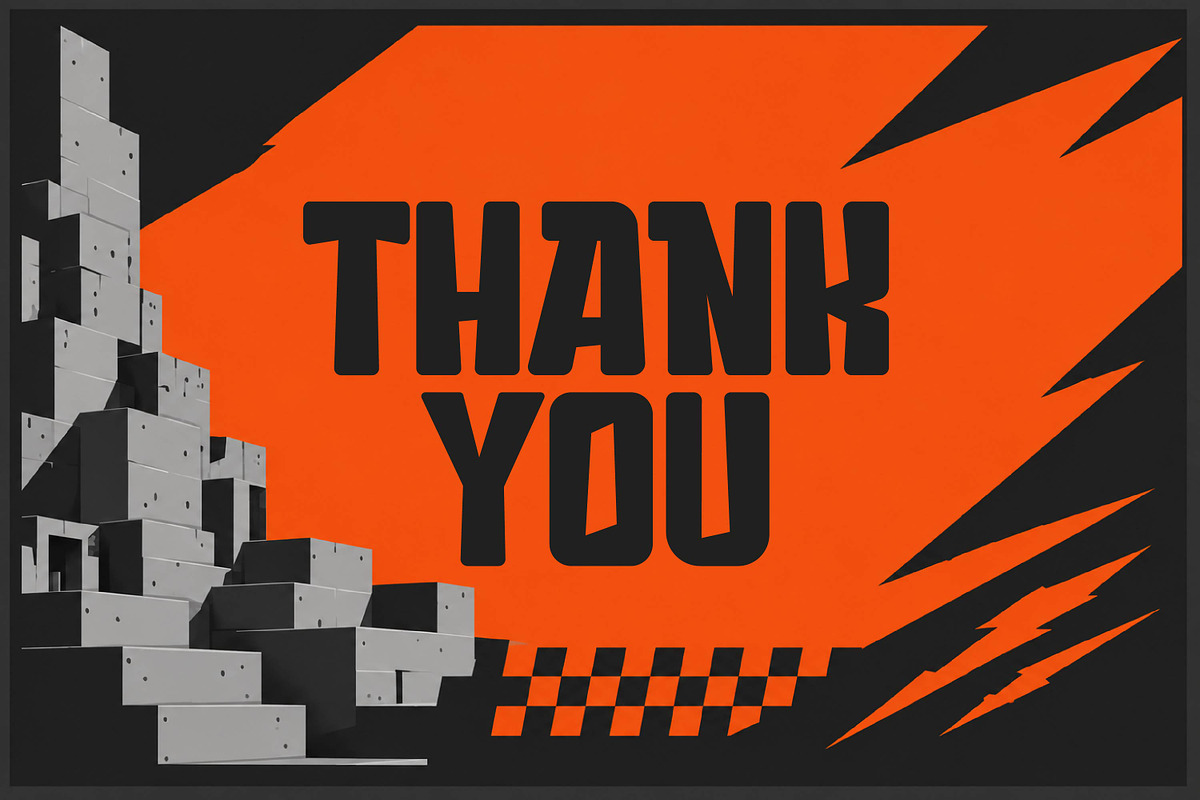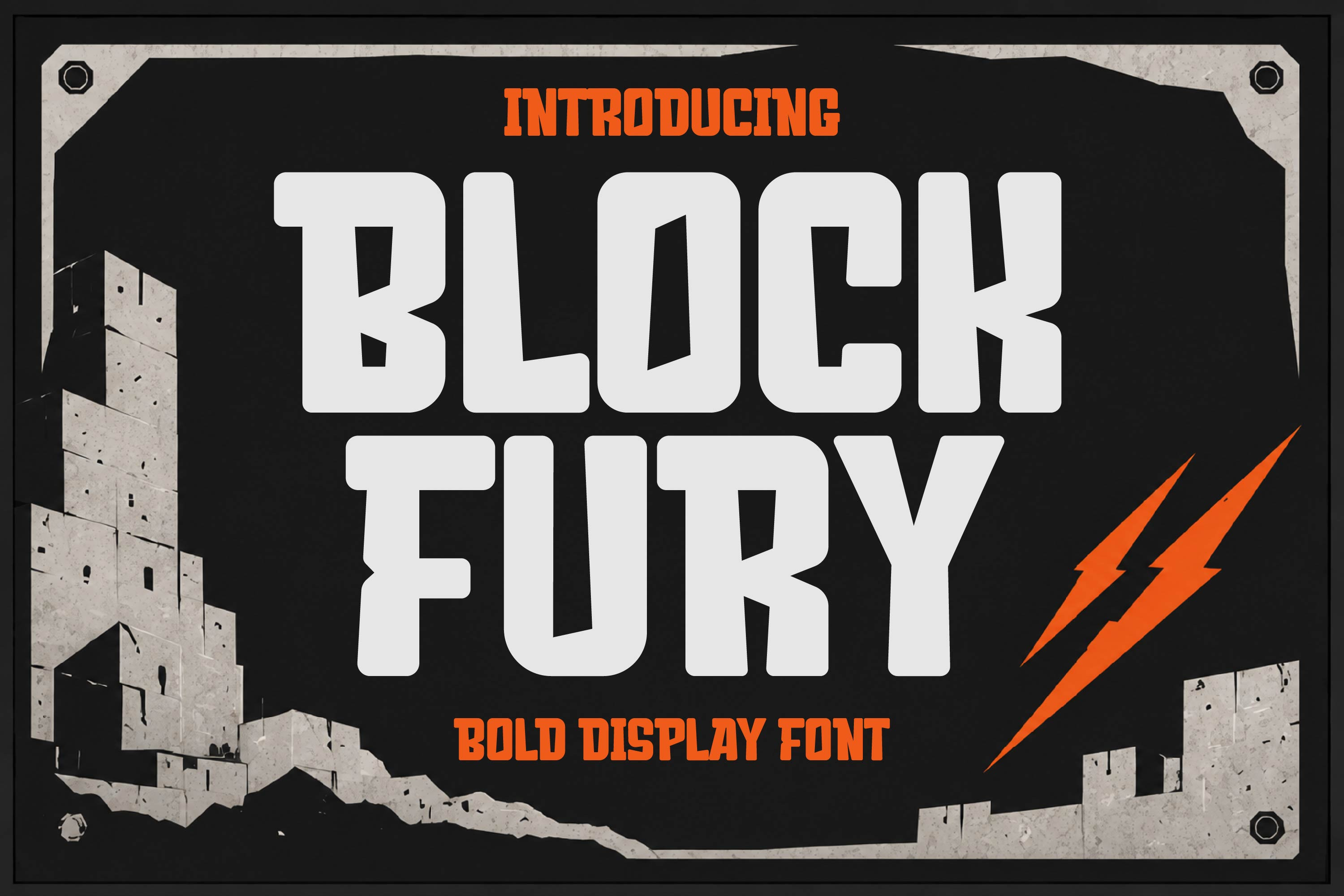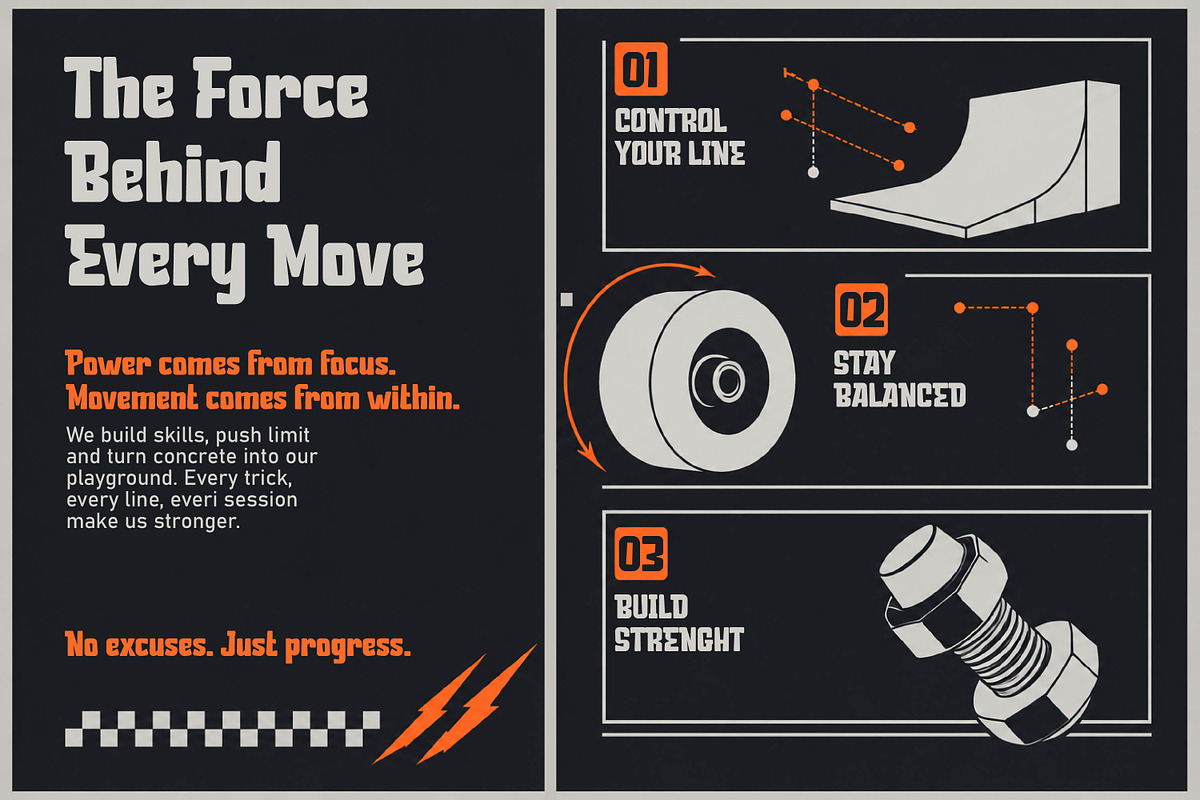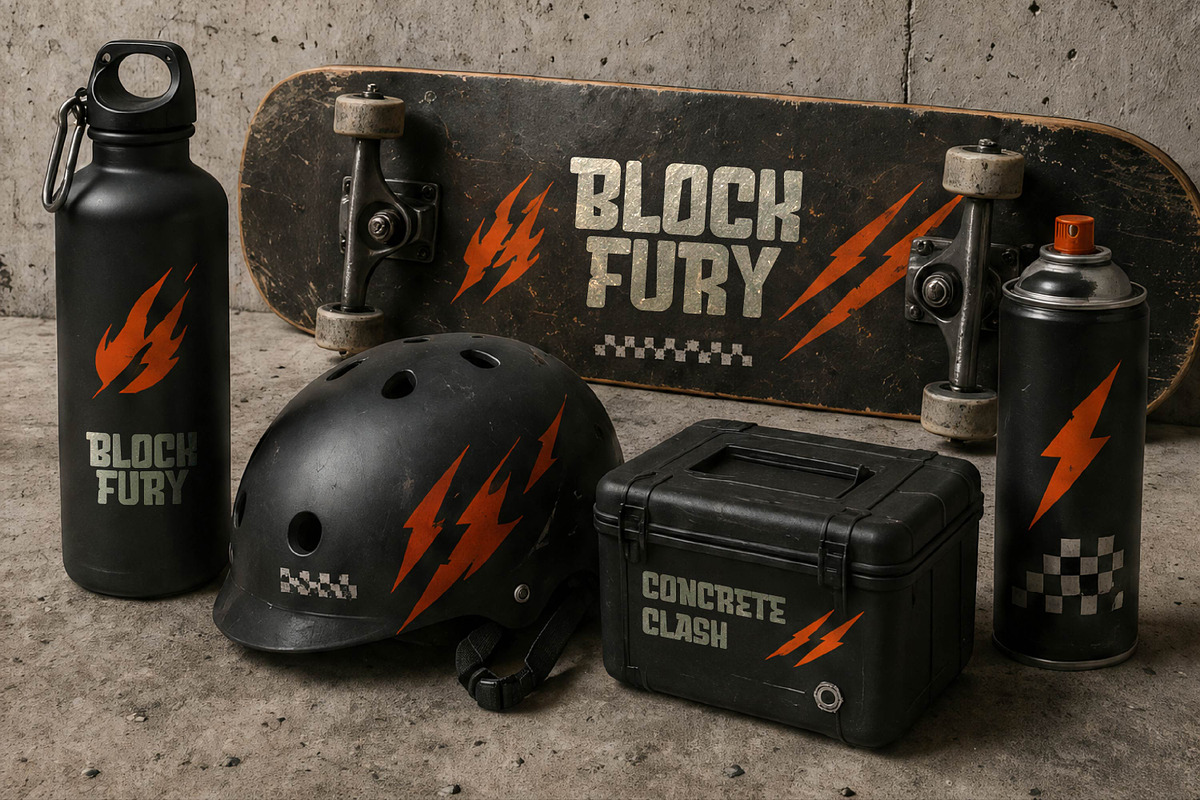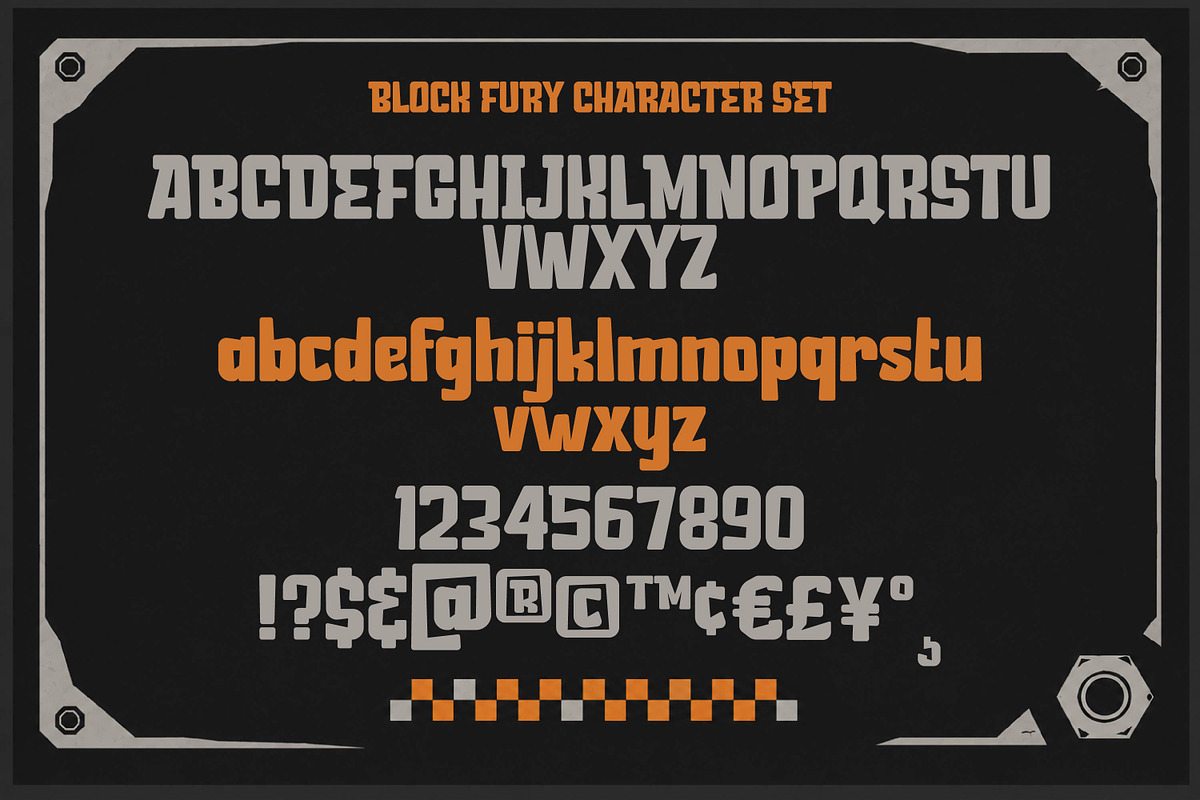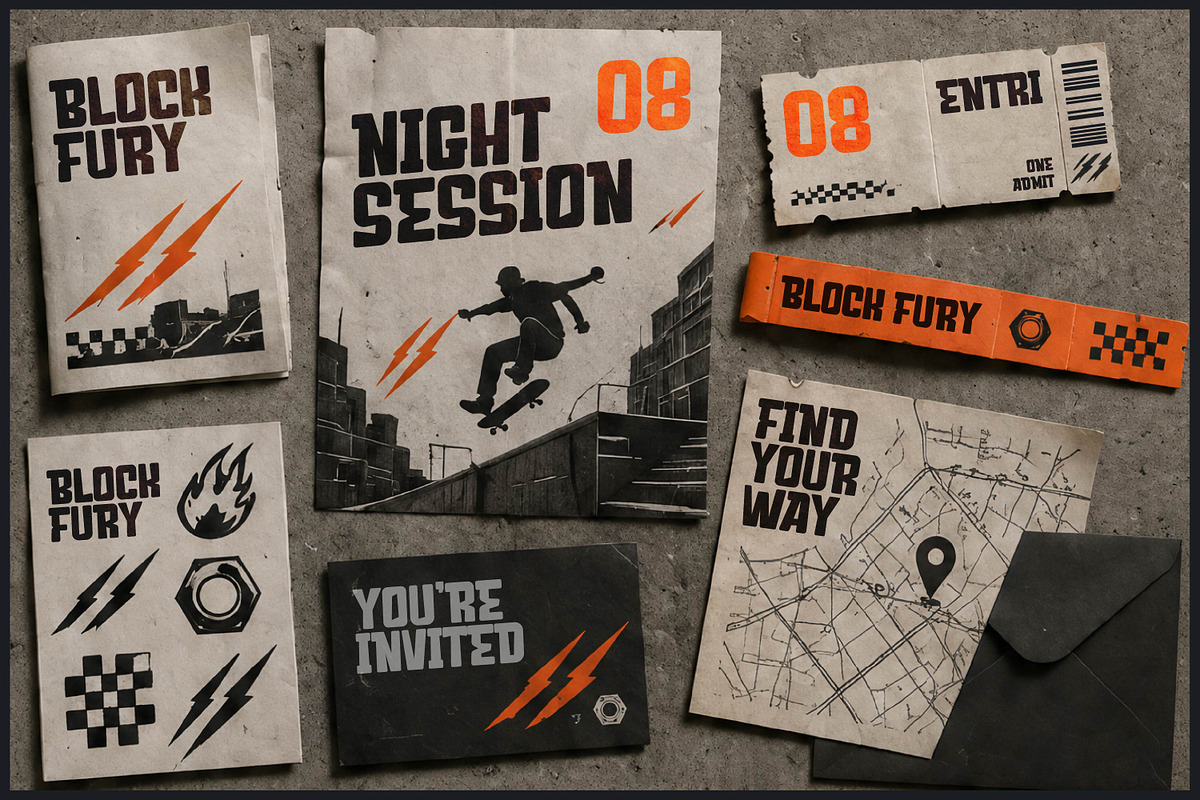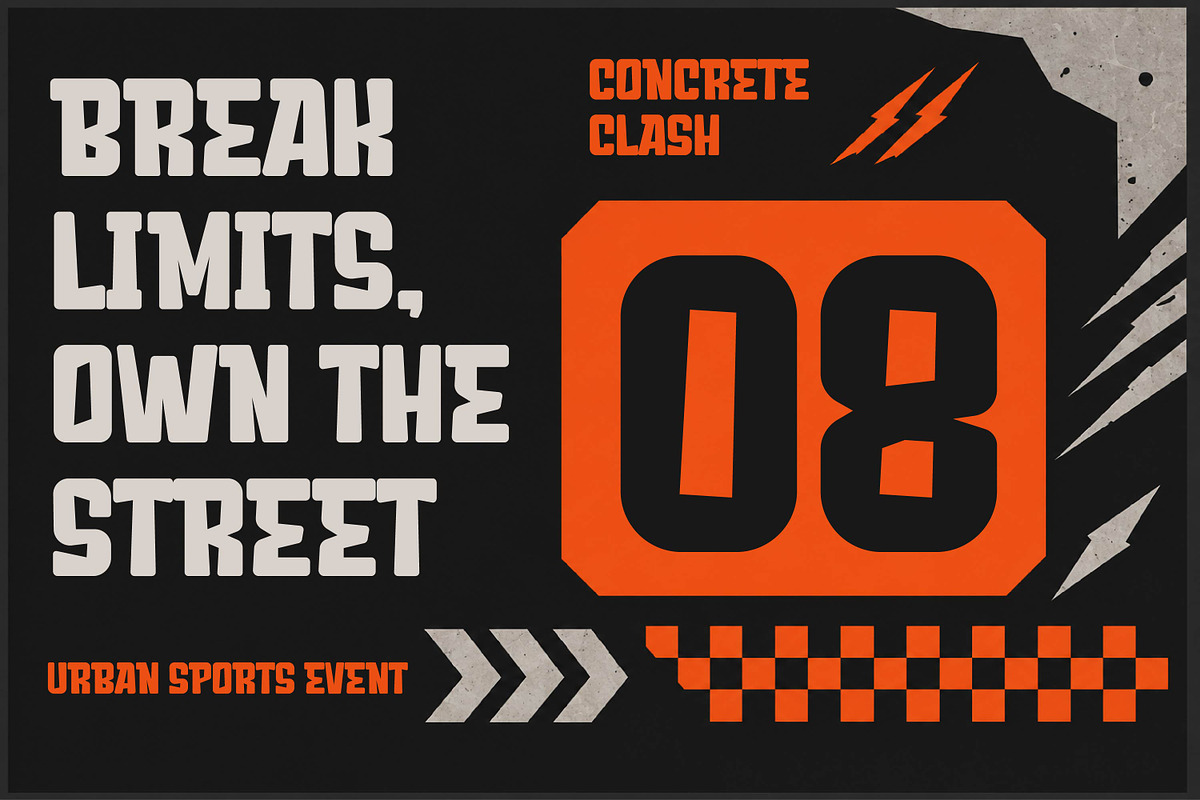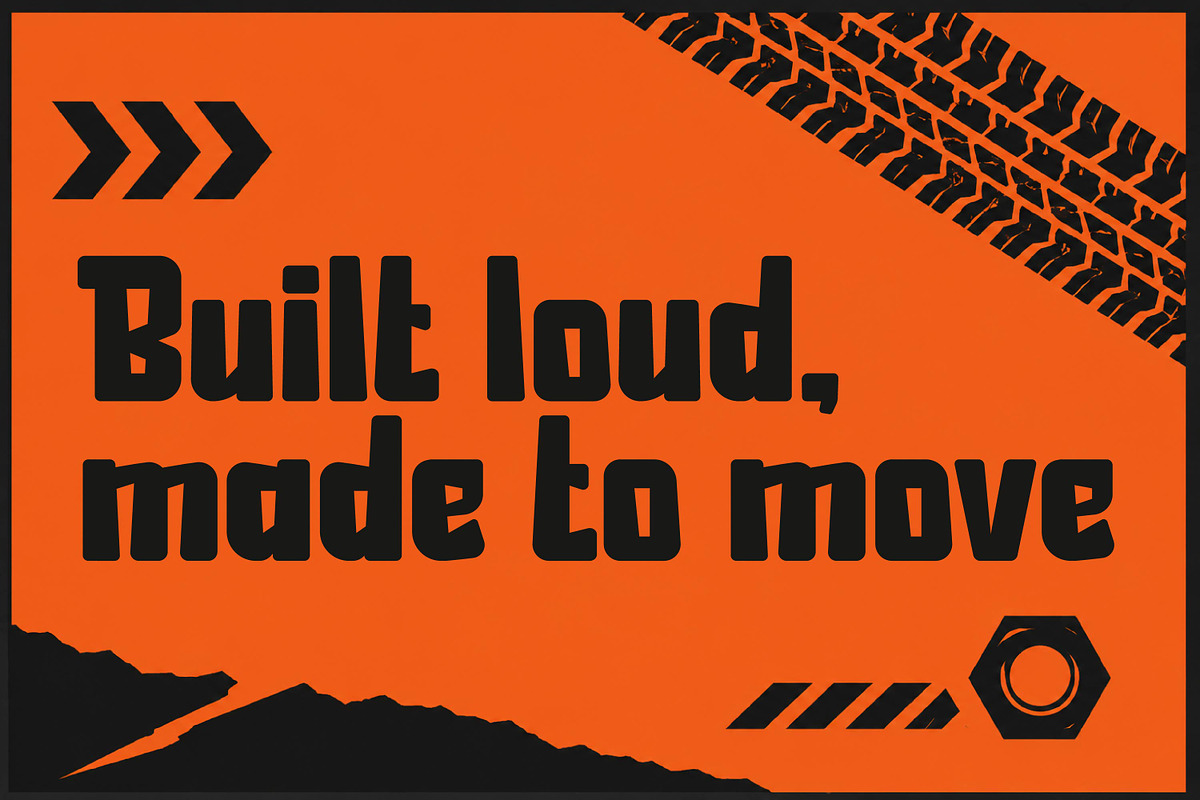
Block Fury - Bold Display Font
Block Fury is a powerful bold display font with strong geometric letterforms and an aggressive, high-impact personality. Perfect for sports branding, gaming titles, posters, headlines, logos, action graphics, and bold designs that demand attention.